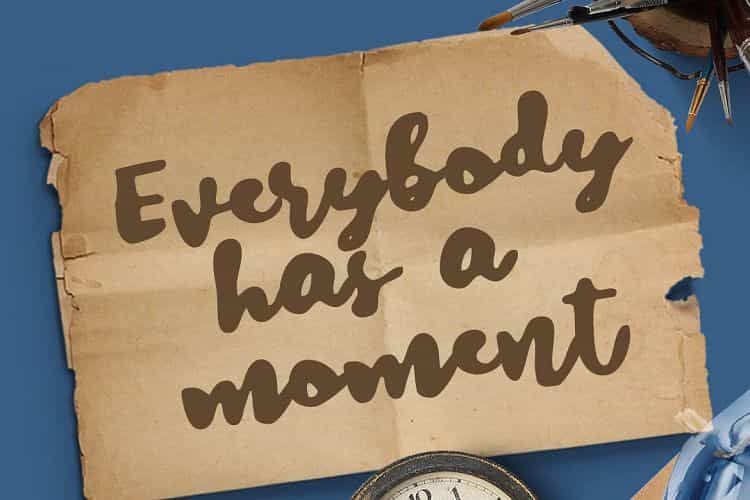
Discover Dreaming Time Brush Font, part of the Commercial Brush collection—a versatile and unique font perfect for adding a personal touch to your projects. Download it for free and enjoy crafting designs with style, from invitations to social media posts. This font is available exclusively for personal use, giving you the freedom to create without limits. Unlock your creativity with Dreaming Time Brush Font today!
Dreaming Times is a cheerful script that is very bouncy, it is natural and loveable, it is perfect for tees design, for logo, for poster, for web header, for invitation, and many other design projects.